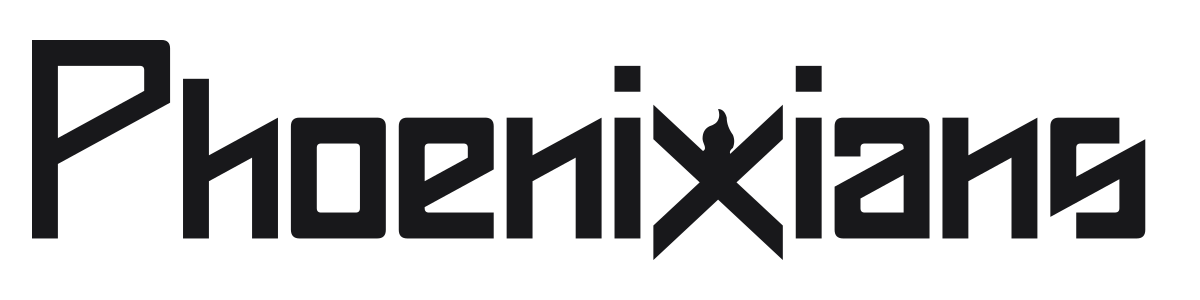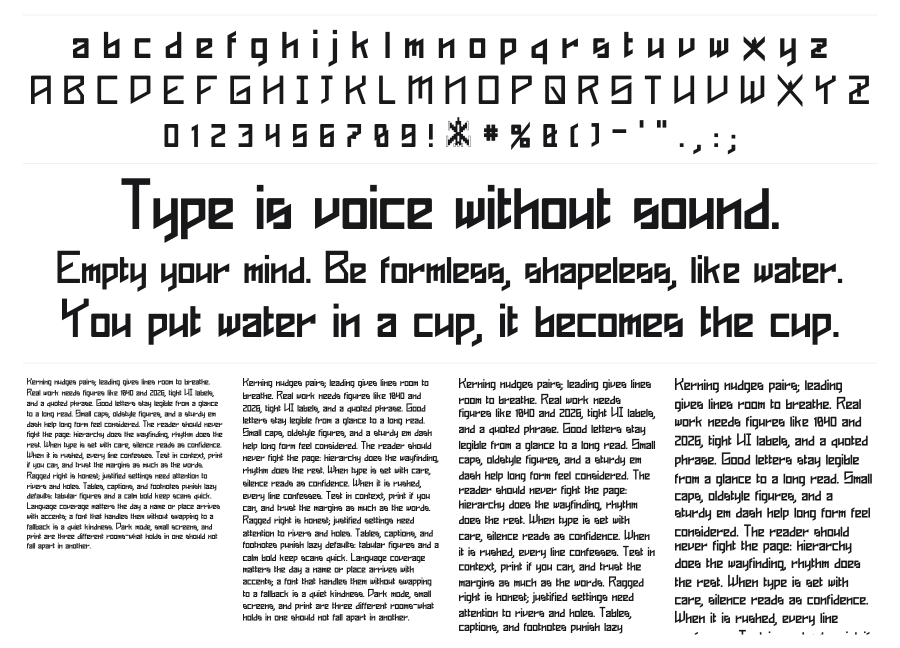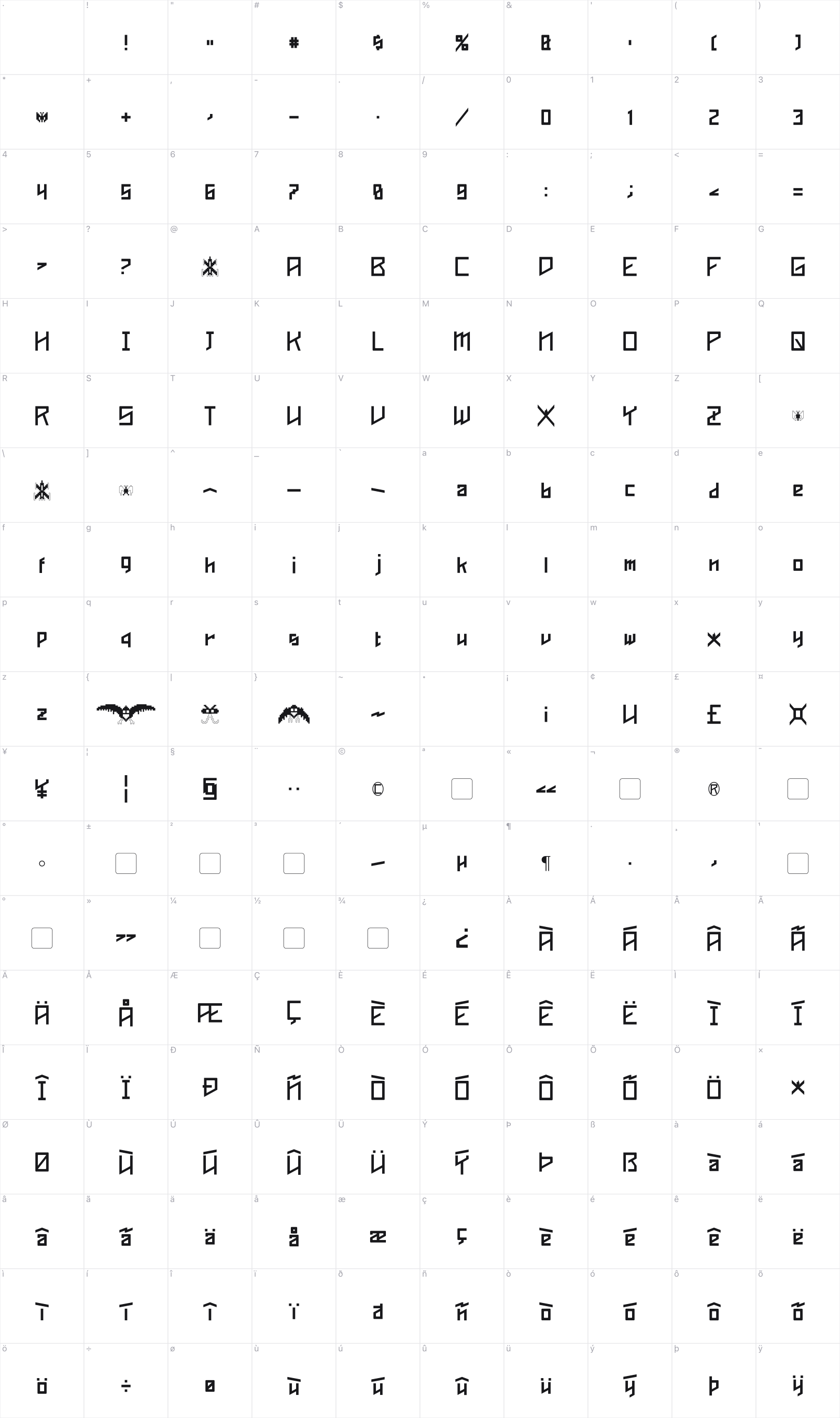
Phoenixians
Phoenixians is a bold geometric display font with sharp angular cuts and chunky proportions that channel 1970s retro-futurism. The notched terminals and diagonal slices across strokes give characters an alien, almost runic quality that stands apart from standard sci-fi typefaces. It hits hard at large sizes in posters, game titles, and logo work.